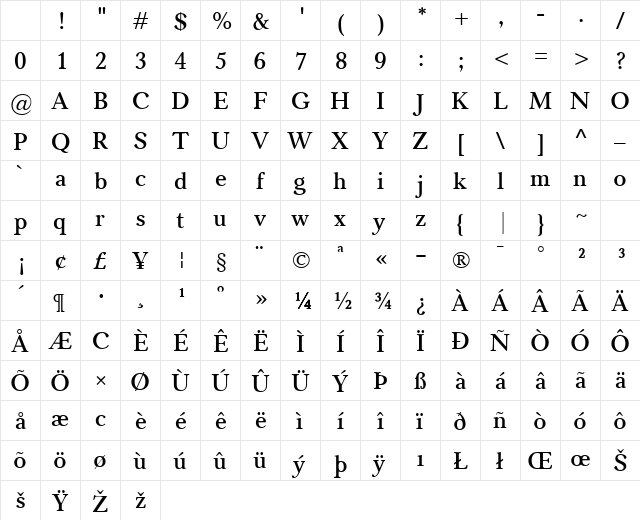
Carniola SemiBold Regular Free Font
Carniola SemiBold Regular
Design Context for Carniola SemiBold
Carniola SemiBold is a composed and adaptable typeface that performs quietly and consistently across a wide range of design contexts. Its bold stroke weight gives it real presence on the page.